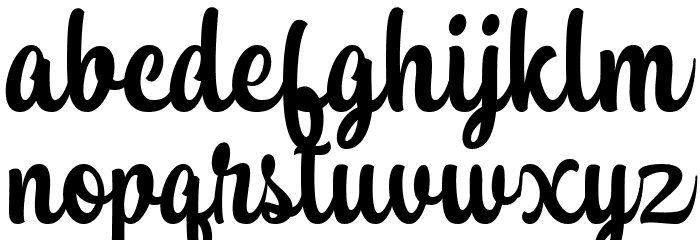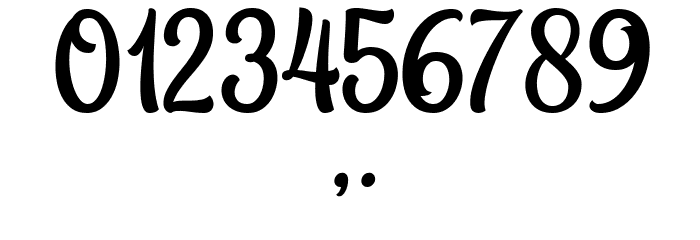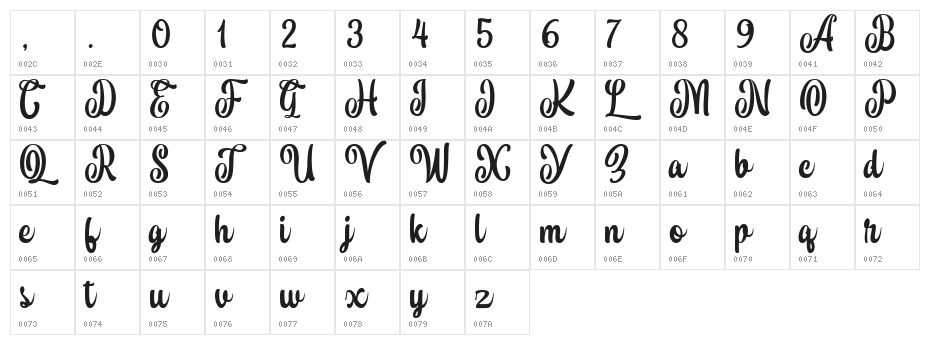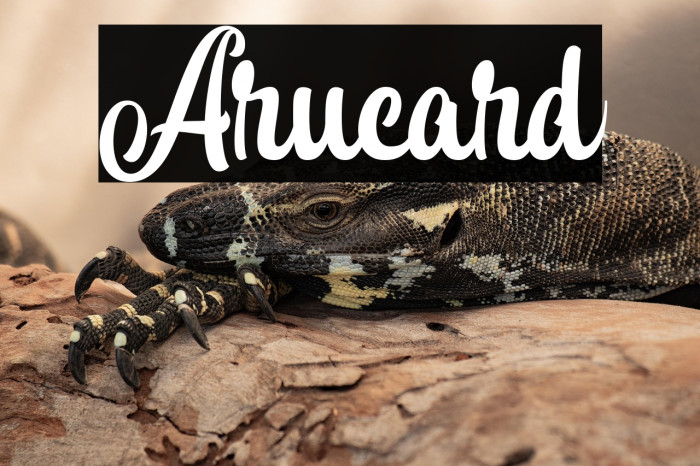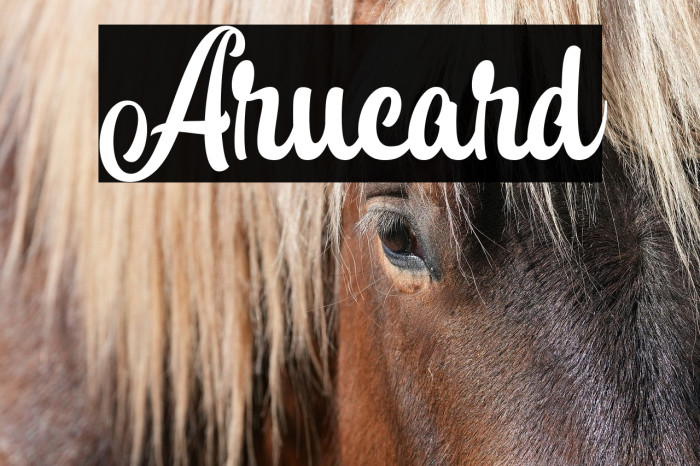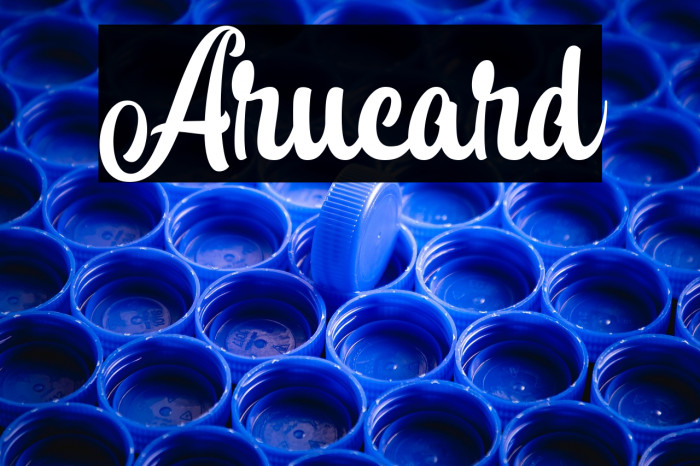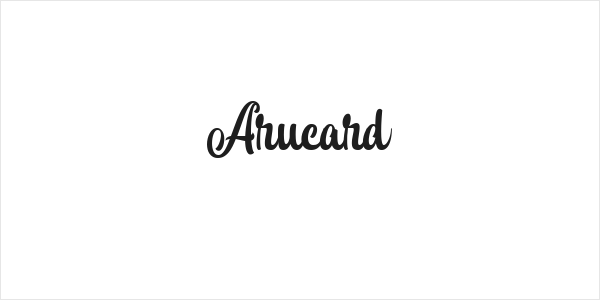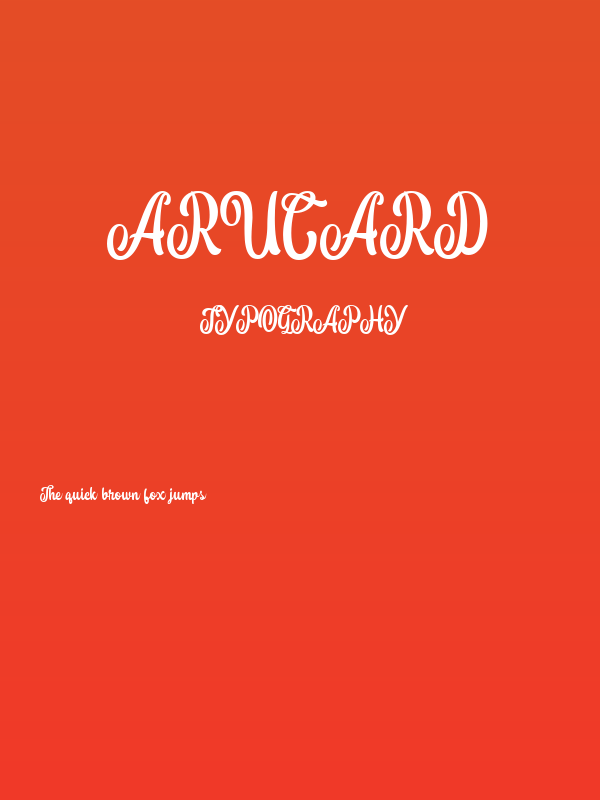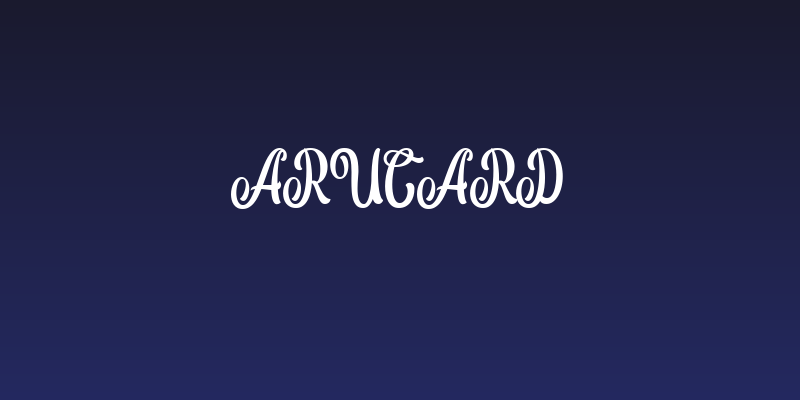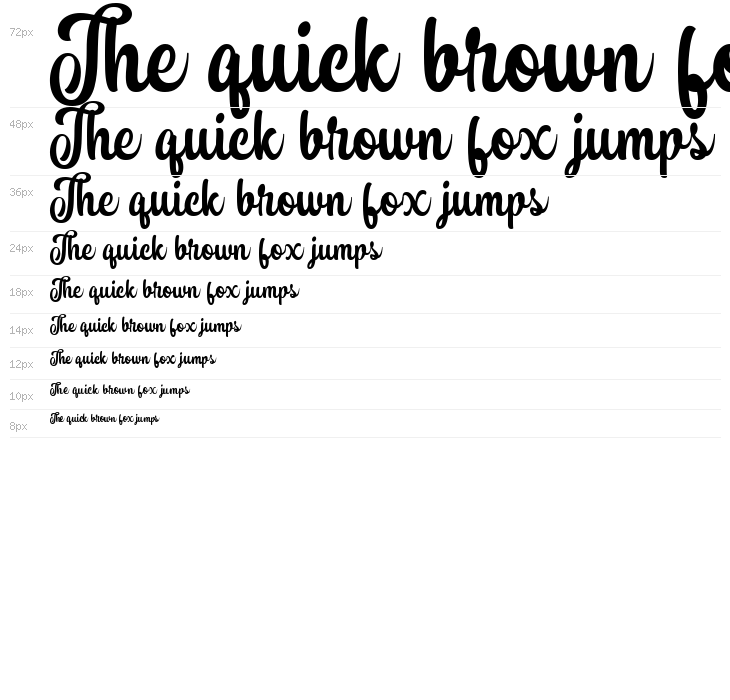
Arucard Font
This font features a bold and flowing script style, characterized by its elegant and decorative curves. The uppercase letters are intricately designed with loops and flourishes, giving them a sophisticated and artistic appearance. The lowercase letters maintain a consistent flow, enhancing readability while retaining the decorative essence. The numerals are bold and clear, matching the overall style of the alphabet. This font is ideal for projects that require a touch of elegance and creativity, such as invitations, branding, and artistic designs.
A bold, decorative script font with elegant curves and flourishes.
- Proposed Projects: Ideal for wedding invitations, branding, logos, and artistic design projects.
- Use Case: Logos, Invitations, Artistic designs